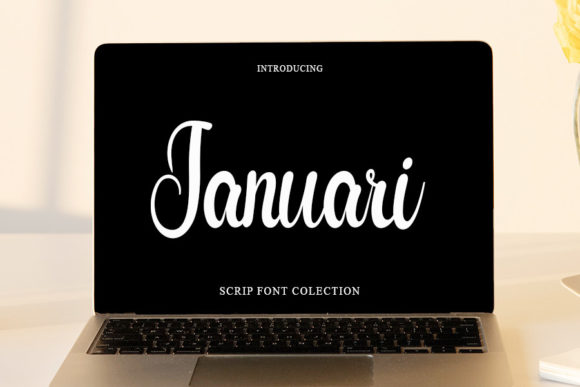
Indulge in the captivating allure of Januari Font, a mesmerizing script that weaves the charm of calligraphy with the vibrancy of modernity. Its graceful strokes and elegant curves evoke a sense of timeless sophistication, while its contemporary flair infuses your creations with an air of freshness and originality.
Crafted with meticulous care and attention to detail, Januari Font is the epitome of versatility, effortlessly elevating your business names, logos, branding, and other creative endeavors. Its unique character adds a touch of refined elegance, making it the perfect choice for those seeking to make a lasting impression.
Unleash your creativity with Januari Font, a font that empowers you to express your unique style and connect with your audience on a deeper level. Its versatility knows no bounds, allowing you to experiment with various design aesthetics and leave an unforgettable mark. Whether you're a seasoned designer or a passionate hobbyist, Januari Font is your key to creating designs that captivate and inspire.
Embrace the artistry of Januari Font and embark on a creative journey where your imagination takes center stage. Let its graceful lines guide you towards remarkable designs that resonate with your audience.